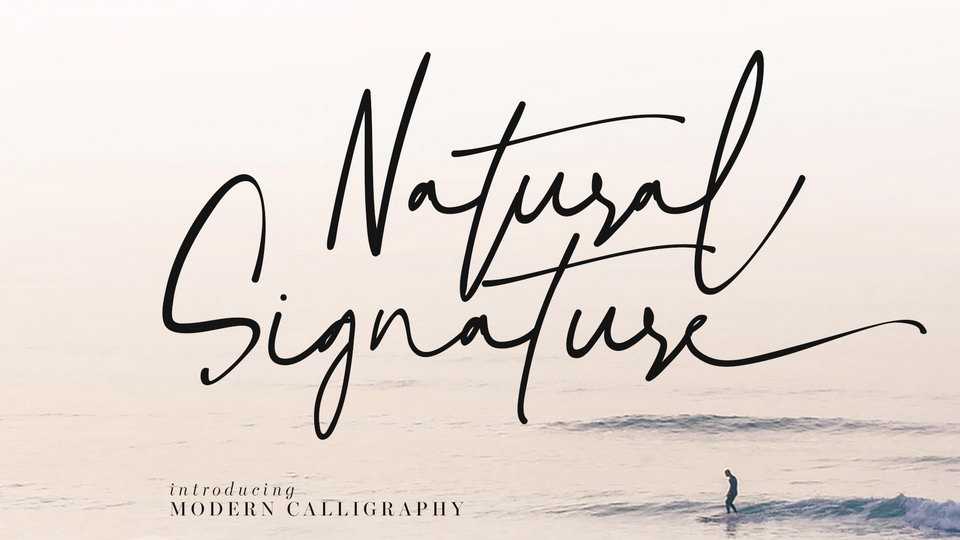
Download Natural Signature font, a stylish handwritten script with a natural flow. Natural Signature font is great for personal logo, photography watermark, quotes, album cover, business card, and many other design project.